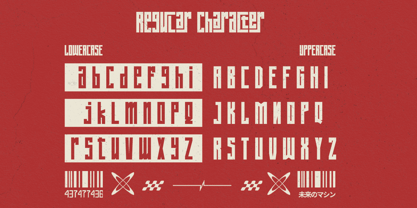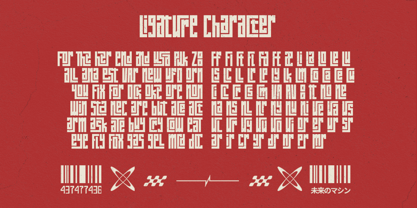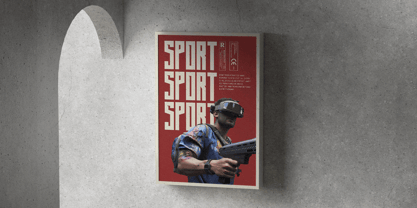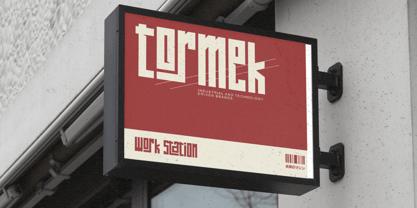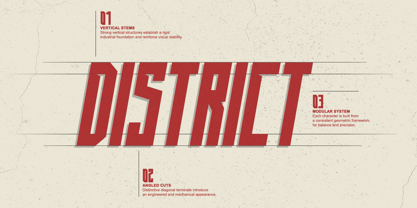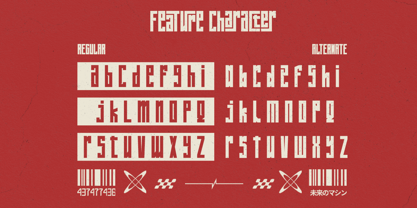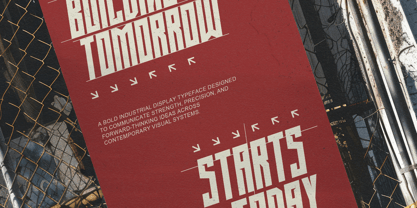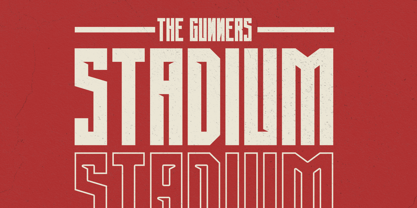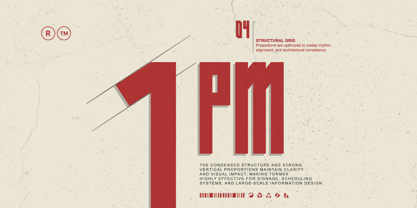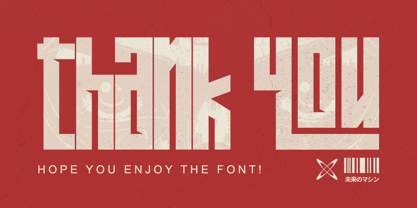
Tormek
by Letterara
The Tormek Font Family was designed by Thomas Aradea and published by Letterara. Tormek contains 2 styles and family package options. More about this family
Tormek is a bold geometric urban display font built for powerful visual identities, futuristic headlines, and modern industrial design. Its tall modular letterforms, sharp architectural cuts, and distinctive geometric construction give every word a strong, technical, and immediately recognizable appearance.
Inspired by contemporary architecture, urban environments, technology, industrial graphics, and futuristic interface design, Tormek brings structure and impact to logos, posters, packaging, editorial layouts, and digital campaigns. Its condensed proportions make it especially effective for large headlines and space-conscious compositions where typography needs to feel bold without losing clarity.
Designers: Thomas Aradea
Foundry: Letterara